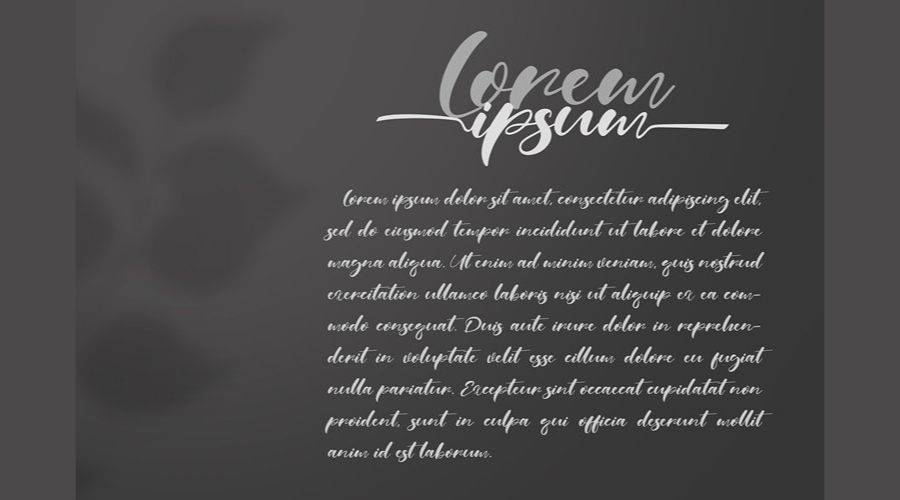
Real Miami Calligraphy Font
The Real Miami Calligraphy Font is a modern and stylish script font with a lively and bold look. On July 10, 2019, the Font was published. Real Miami Calligraphy Font is entirely new calligraphy and script font. This high-quality Font has posed a challenge in its regular magnificence, but this attractive fashion has maintained as mould that Font. So it’ll be a challenging and quick up in any type of on-foot device from the outside.
Uppercase and lowercase letters, numerals and punctuations, multilingual support, stylistic alternatives, and ligatures are just a few of the Font’s wonderful features. Real Miami.ttf and Real Miami.otf are both included with the Font. Khurasan created the Font and shared it. Some of the languages supported by the Font include Afrikaans, Catalan, Croatian, Czech, Danish, Dutch, English, Estonian, Finnish, French, German, Hebrew, Hungarian, Icelandic, Italian, Latvian, Lithuanian, Maltese, Norwegian, Polish, Portuguese, Romanian, Slovak, Slovenian, English, Swedish, Turkish, Yiddish, and Zulu. Real Miami is a vibrant Script and Calligraphy typeface. Its subtle yet endearing charm will win you over. The font is available in two different formats: OTF and TTF.
Real Miami Calligraphy Font can be used for logos, branding, greeting cards, posters, and other designs. The beautiful Font is ideal for logos, branding, invitations, stationery, wedding invitations, stickers, business cards, covers, t-shirts, social media posts, and much more.
It will also be utilized to generate a stunning image and text in a variety of colors and styles. Real Miami Calligraphy Font will add a vibrant, energetic, and casual feel to any venture. For designers and other creatives who need a typeface like this, it’s a wonderful choice.
StyleScript, Calligraphy